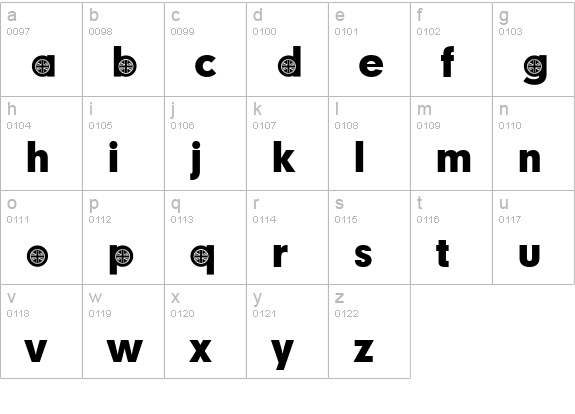
British Participants Font Details
The British Participants font is a classic and elegant typeface that exudes sophistication and charm. With its clean lines and timeless appeal, this font is perfect for adding a touch of class to any design project. Whether you're creating invitations, posters, or branding materials, the British Participants font will elevate your work to the next level. Best of all, the British Participants font is completely free to download at FontsMarket.com. You can easily access this stunning typeface and start using it in your projects right away. Don't miss out on the opportunity to enhance your designs with the beauty and elegance of the British Participants font. Download it now and take your creations to new heights!